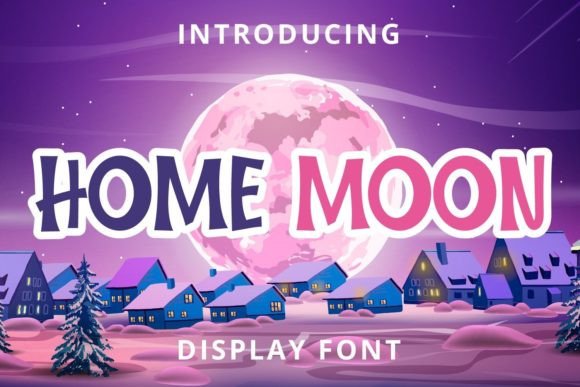
Venture into a whimsical world of typography with Home Moon Font, a display font that exudes charm and playfulness. Crafted by the talented designers at Planetz Studio, this font family is a delightful addition to any creative arsenal, perfect for crafting heartfelt messages, heartwarming designs, and enchanting visuals.
Home Moon Font is not just a collection of letters and symbols; it's an expression of joy, love, and creativity. Its soft, rounded edges and cheerful demeanor evoke a sense of nostalgia and warmth, making it an ideal choice for projects that aim to capture the essence of heartfelt emotions.
With Home Moon Font, you can effortlessly create designs that resonate with your audience, leaving a lasting impression. Its versatility extends from digital designs and presentations to greeting cards and handmade crafts, making it a versatile tool for expressing your creativity in countless ways.
Immerse yourself in the world of Home Moon Font, where every letter is a brushstroke of happiness and every word a melody of love. Let your imagination soar as you explore the endless possibilities that await you with this captivating font family.